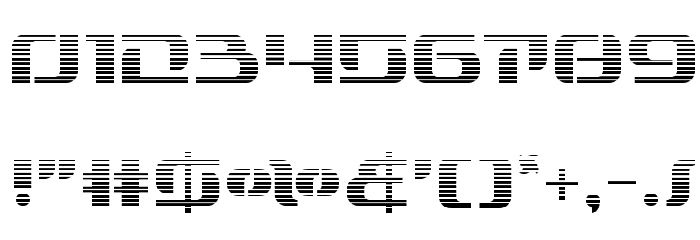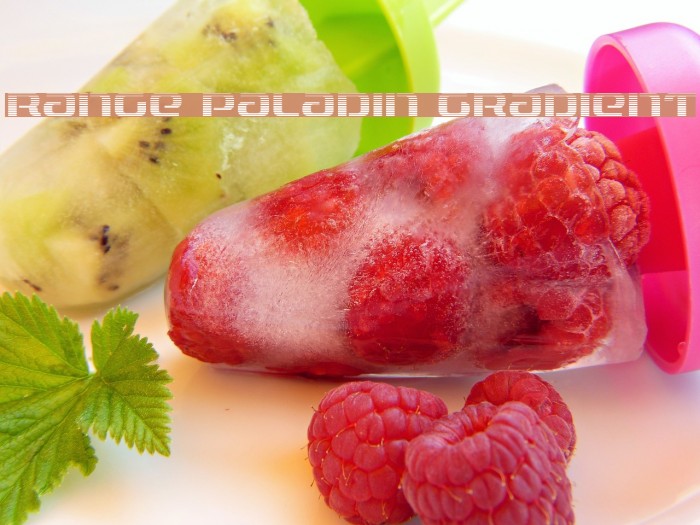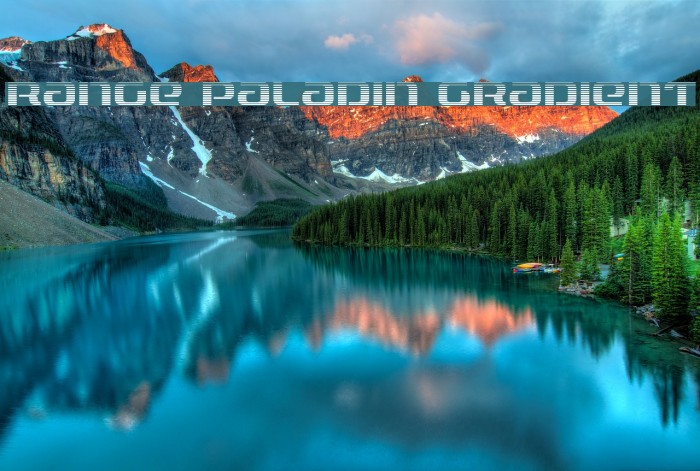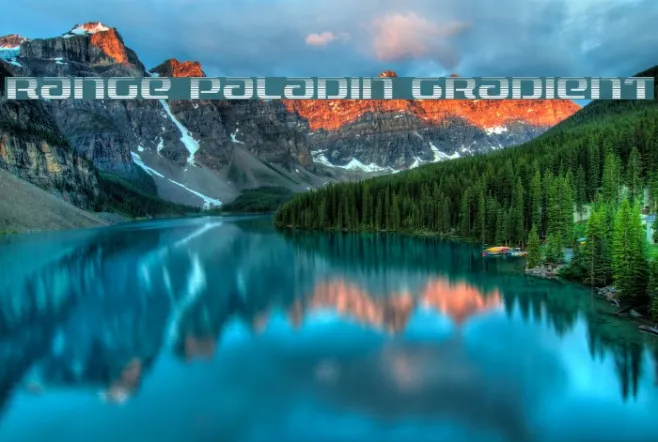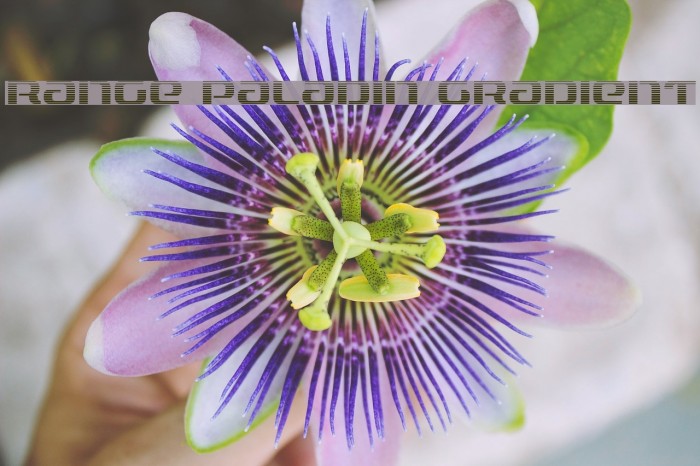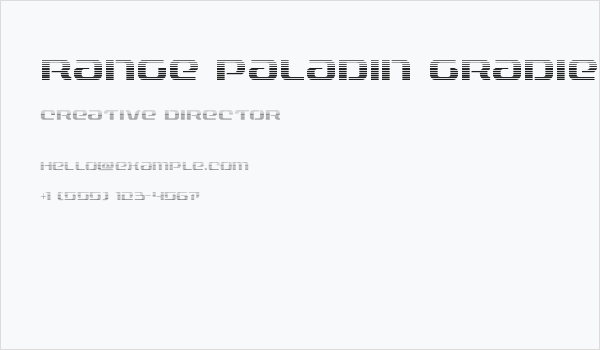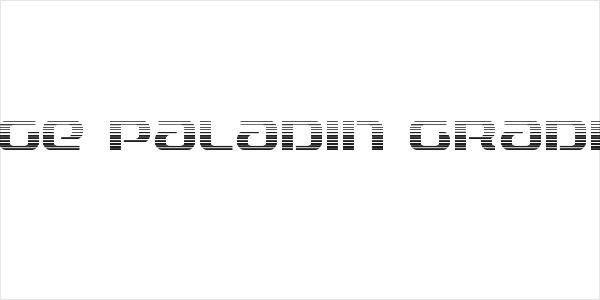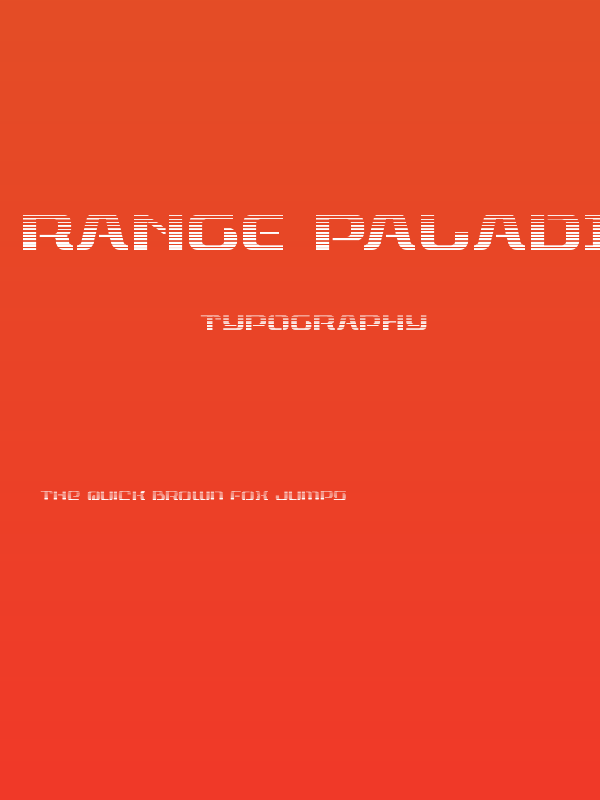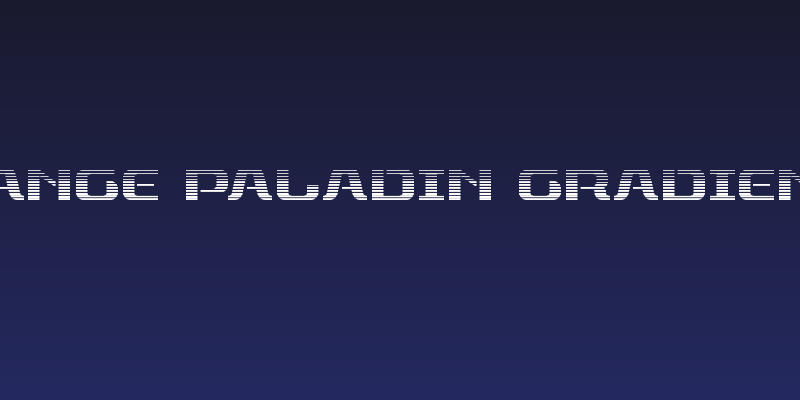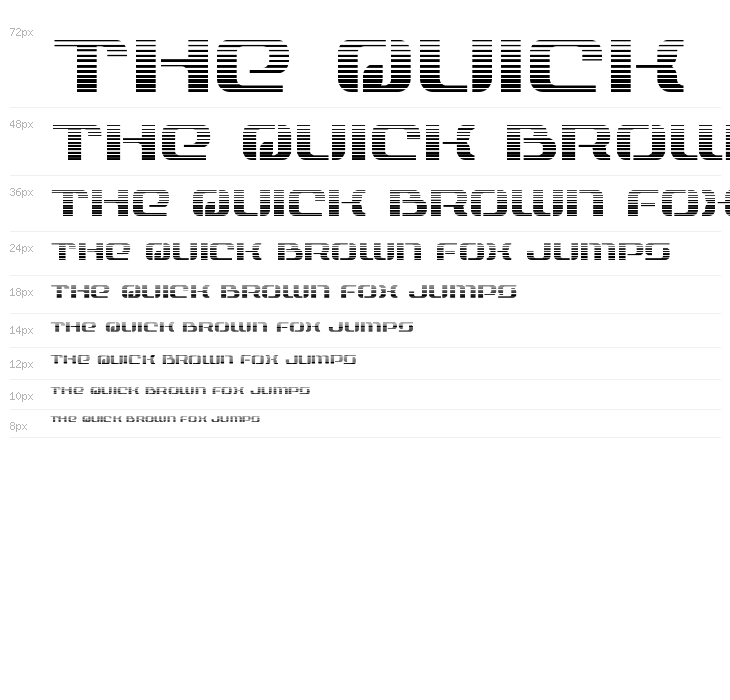
Range Paladin Gradient Font
Range Paladin Gradient Description
This font features a unique, futuristic design with a gradient-like effect created by horizontal lines cutting through each character. The uppercase and lowercase letters maintain a consistent style, emphasizing bold geometric shapes and sharp angles. The numerals and special characters follow the same design principles, ensuring uniformity across the entire typeface. The font's distinct appearance makes it ideal for projects that require a modern and edgy look.
| Proposed Projects | Ideal for sci-fi themed designs, tech branding, video game titles, and modern posters. |